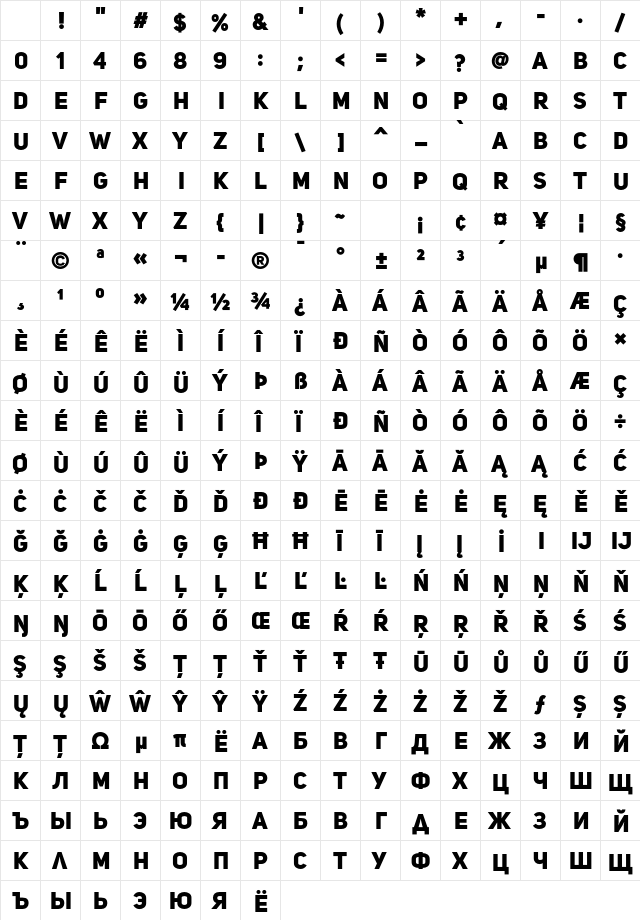
Complete Uni Sans Heavy CAPS glyph index. Displaying only characters natively supported by Uni Sans Heavy CAPS font.
Uni Sans is a composed and adaptable typeface that performs quietly and consistently across a wide range of design contexts.
Who designed the Uni Sans Heavy CAPS font?
This font was published by ? 2009 Designed by Svetoslav Simov ? Fontfabric, Inc. Check the technical specs section for copyright and designer details.